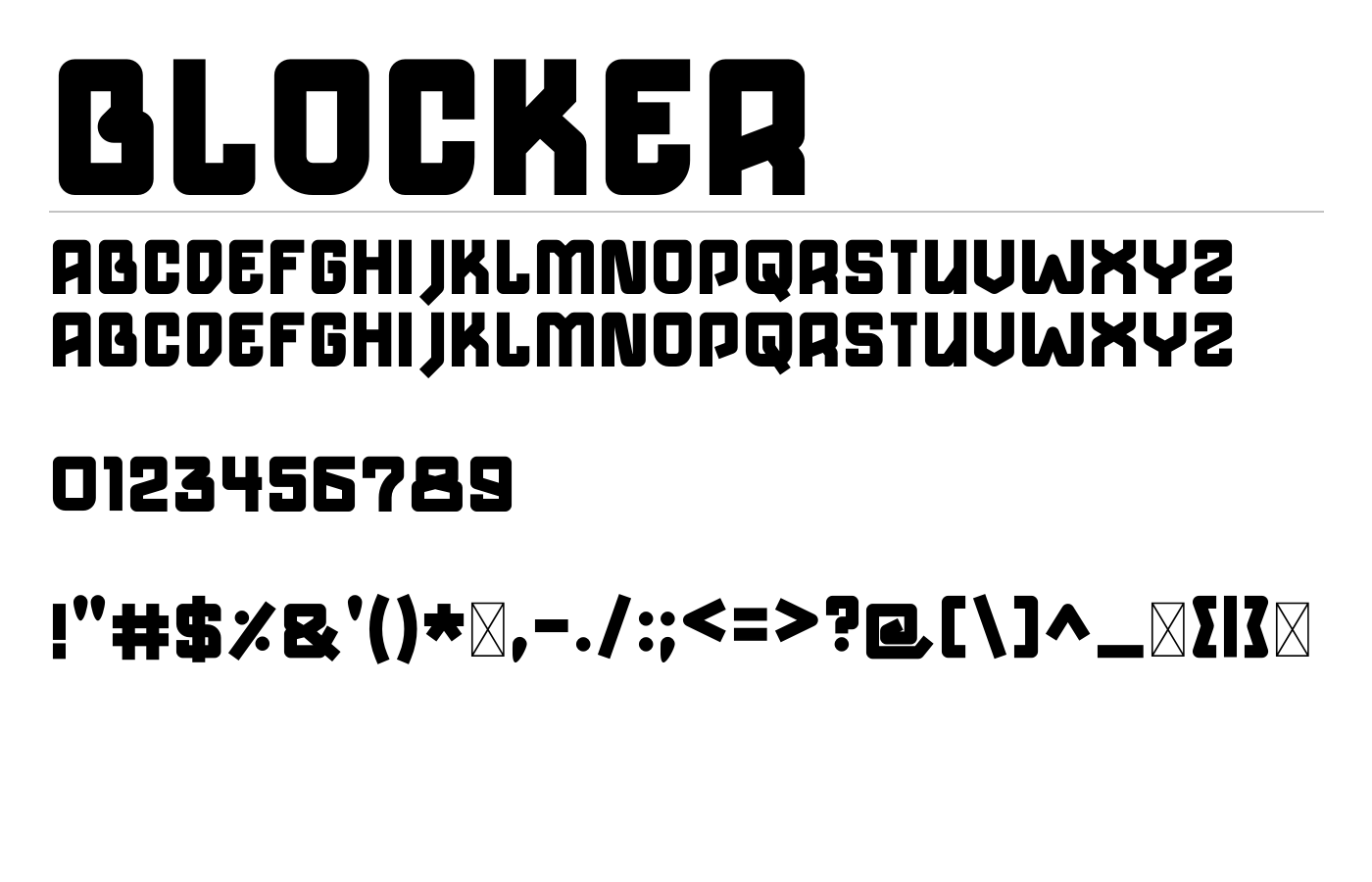
Blocker is a bold, geometric sans serif font with a strong, modern presence. Its blocky, condensed forms feature consistent stroke weight and slightly rounded corners, giving it a sturdy yet approachable feel that works well for impactful headlines, logos, and branding projects seeking a contemporary, industrial vibe. Ideal for attention-grabbing display use, Blocker brings a confident and dynamic personality to designs needing clear, powerful typography.
Blocker Font
About Blocker Font
| Font family | Blocker Font |
| Designer | HighUpNorth |